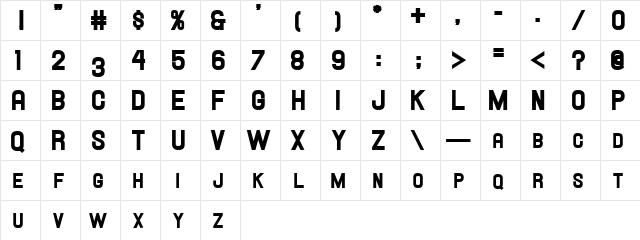
Hallandale SC Heavy JL Regular
Design Context for Hallandale SC Heavy JL
Hallandale SC Heavy JL is a composed and adaptable typeface that performs quietly and consistently across a wide range of design contexts.
Pro Tip: Use Hallandale SC Heavy JL in both headline and body roles to test its range before committing to a single application.